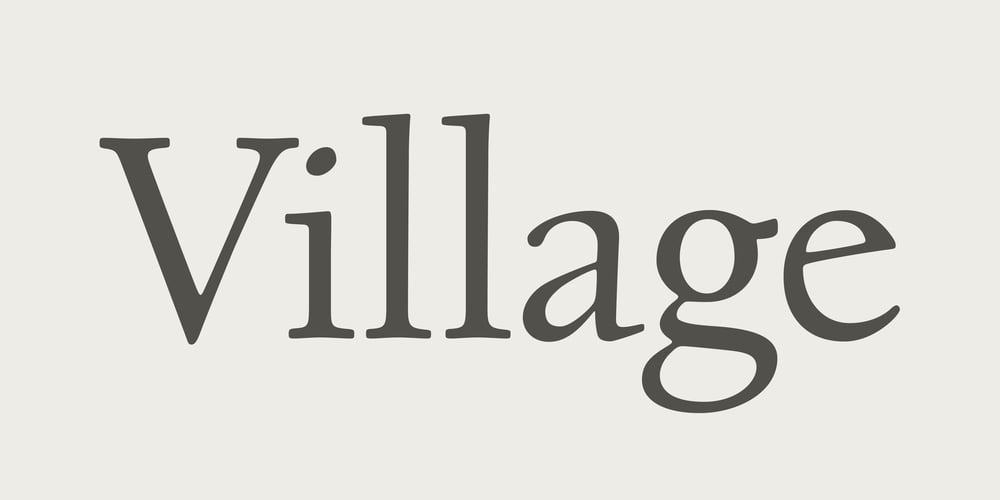
Village Font Family was designed by David Berlow and published by Font Bureau. Village contains 6 styles and family package options. David Berlow undertook the revival of Frederic W. Goudy’s Village family in the early ’90s as the first real step in the successful redesign of Esquire magazine. Goudy originally cut Village No. 2 in 1932 to bring early ideas up to date, adding the italic a year or two later for his own satisfaction. Font Bureau expanded Village, the model for Goudy’s mature style, into a ten-part series designed for Esquire’s use in text and display; FB 1994